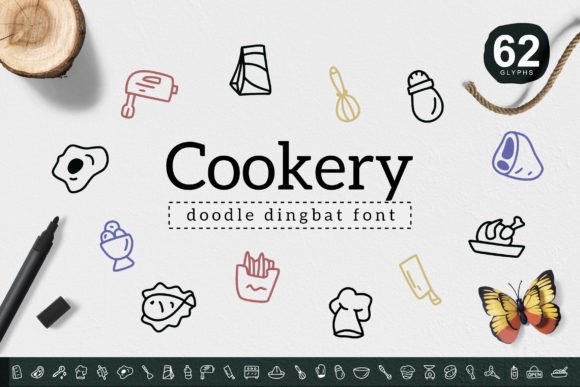
Introducing Cookery Font, the playful and practical dingbats font that's ready to add a dash of whimsy to your creative endeavors. Discover a world of possibilities with this enchanting font, crafted meticulously by YandiDesigns.
Embark on a culinary adventure with Cookery Font, where each symbol is a delectable delight. From tantalizing pastries to sizzling skillets, this font captures the essence of gastronomy with its charmingly illustrated icons. Unleash your inner chef and create mouthwatering menus, eye-catching food packaging, and irresistible recipe books that will tantalize taste buds and leave your audience craving more.
Go beyond the kitchen and let Cookery Font add a touch of flair to your designs. Create delightful stickers that bring a smile to faces, or use it to design vibrant posters that demand attention. Transform ordinary t-shirts into wearable works of art with Cookery Font's playful graphics. And for those special occasions, craft heartfelt cards adorned with charming symbols that convey your warmest sentiments.
The beauty of Cookery Font lies in its versatility. It effortlessly blends with various design styles, from the whimsical and playful to the sleek and sophisticated. Integrate it seamlessly into your branding, creating a cohesive and memorable visual identity that reflects your unique personality or business ethos.
Unlock your creativity and let Cookery Font guide you on an artistic escapade. Its user-friendly interface makes it accessible to both seasoned designers and those just starting their creative journey. With Cookery Font, the possibilities are endless, limited only by your imagination.
So, embrace the culinary charm of Cookery Font and embark on a design adventure that will leave a lasting impression. Let your creations sizzle with personality and charm, captivating your audience with every stroke of your imagination. Welcome Cookery Font into your creative toolkit today and savor the delightful difference it brings to your designs!